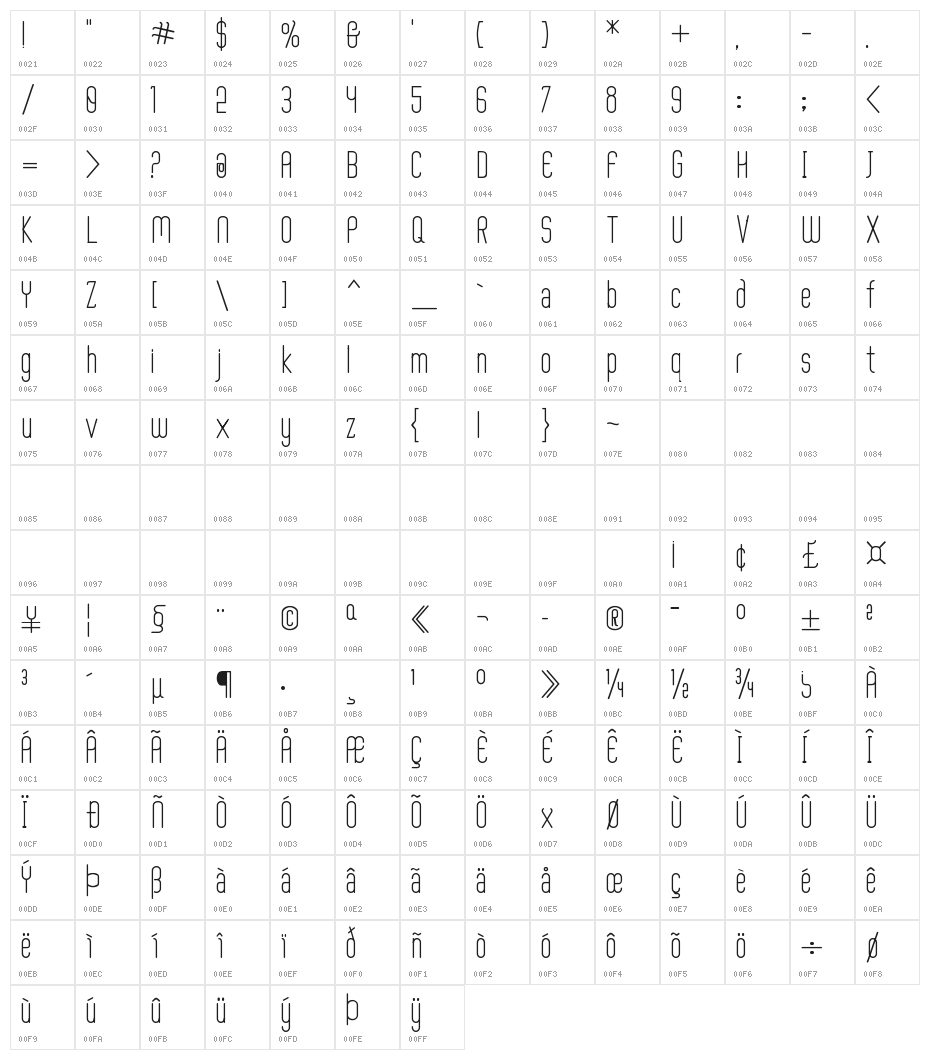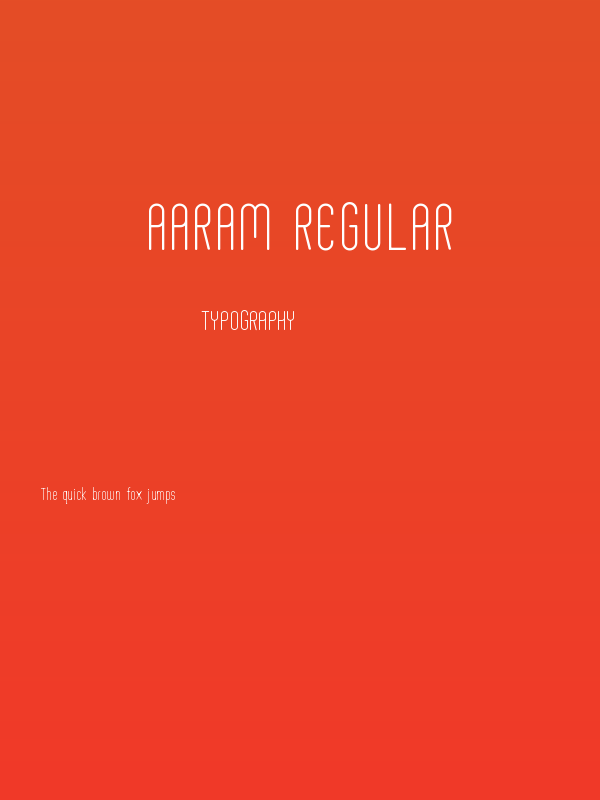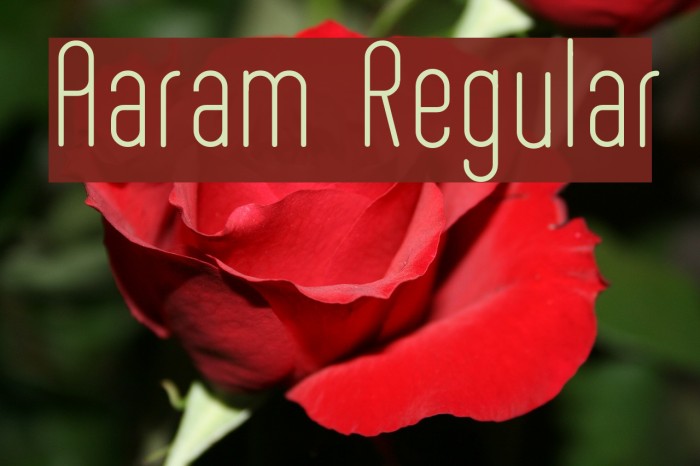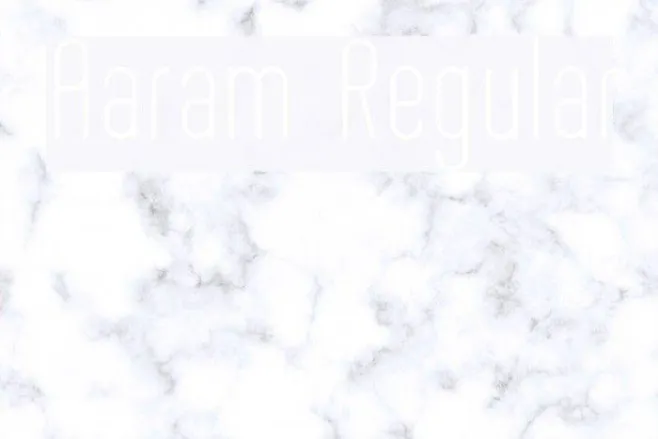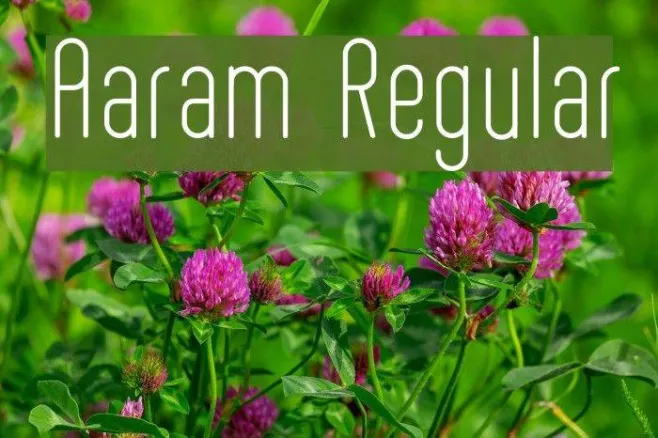
Aaram Regular Font
✎ Typewriter
Aaram Regular Description
This font features a clean and modern design with a monospaced appearance. The characters are tall and narrow, giving it a sleek and contemporary look. The strokes are consistent in width, providing a uniform and balanced feel. The uppercase and lowercase letters maintain a cohesive style, with rounded edges that soften the overall appearance. The numerals are clear and easy to read, matching the style of the alphabet. Special characters are well-integrated, maintaining the font's minimalist aesthetic. This font is versatile, suitable for both digital and print media.
| Width | Condensed |
| Use Case | Headlines, Body text, Logos |
| Proposed Projects | Ideal for coding environments, technical documents, minimalist branding, and modern web design. |